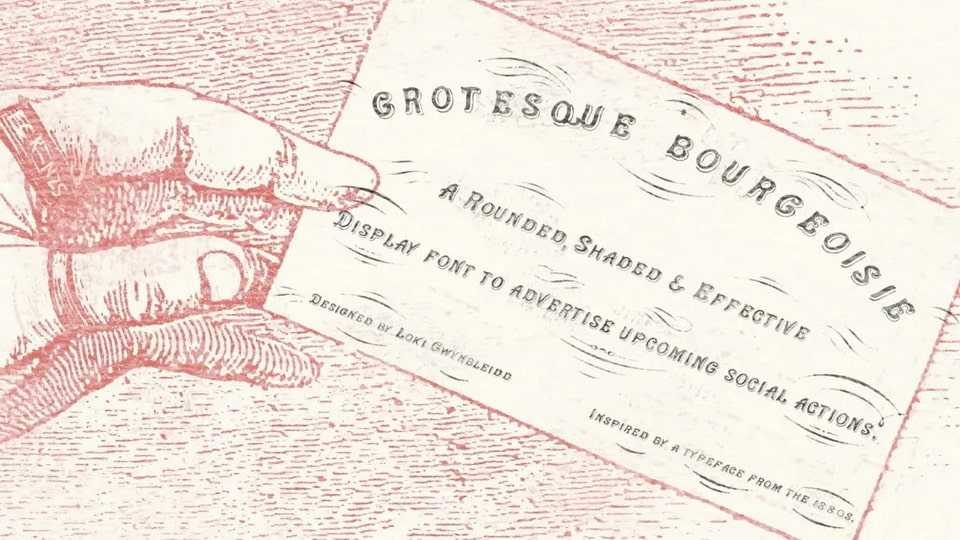
Grotesque Bourgeoisie Font › Fontesk – Download Grátis
Download Grotesque Bourgeoisie font, a rounded, shaded and effective display typeface to advertise upcoming social actions. It’s a revival of an 1880s font used for business cards and some titles.
Designer: Loki Gwynbleidd